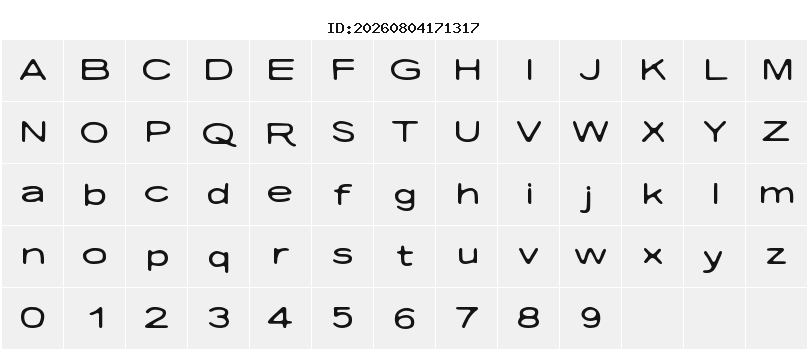
• Font Name: Nicotine Love
• Designer: junkohanhero
About Nicotine Love.ttf
Nicotine Love.ttf is a modern, elegant sans-serif font designed for ultimate readability and visual harmony. Perfect for branding, headlines, web design, and print materials.